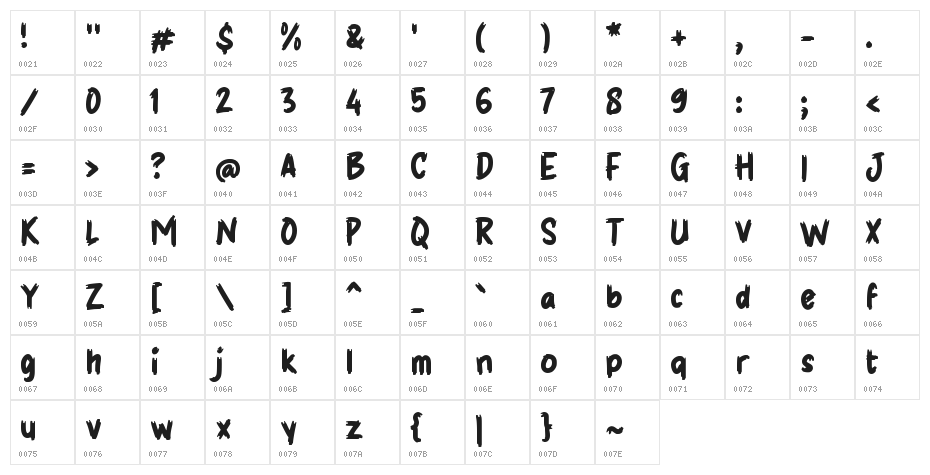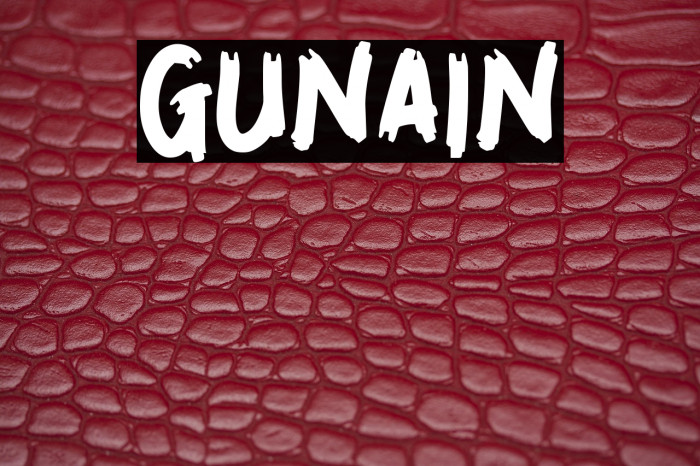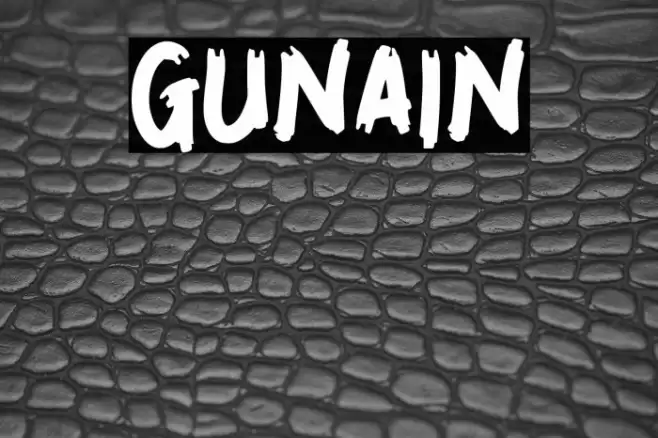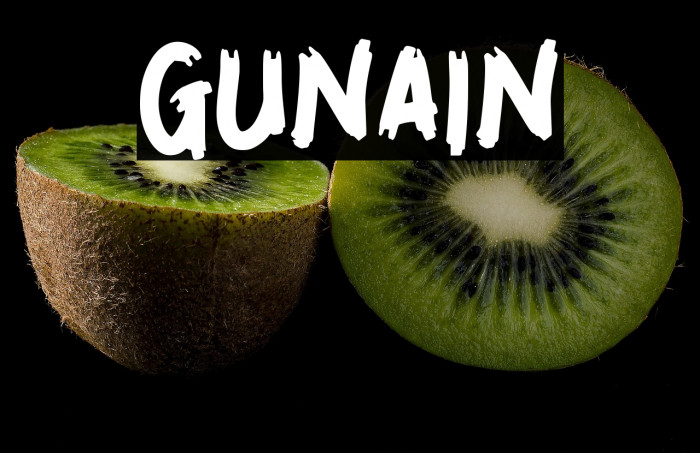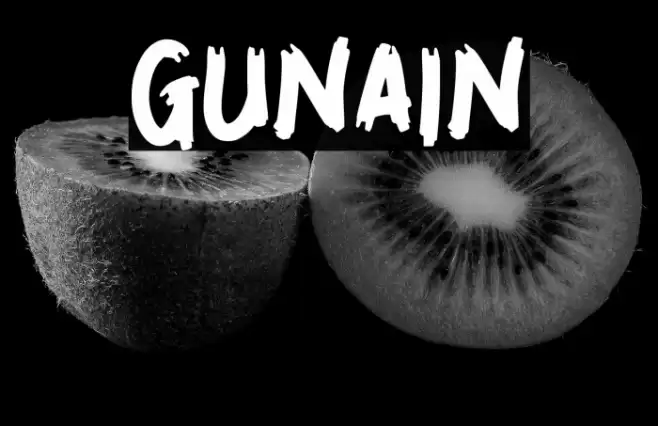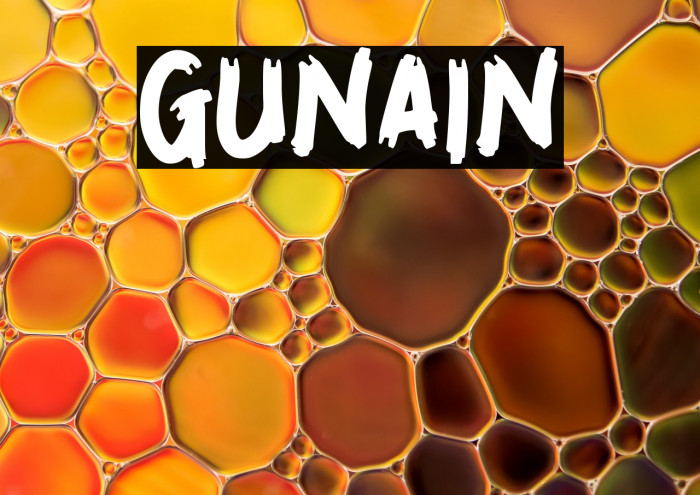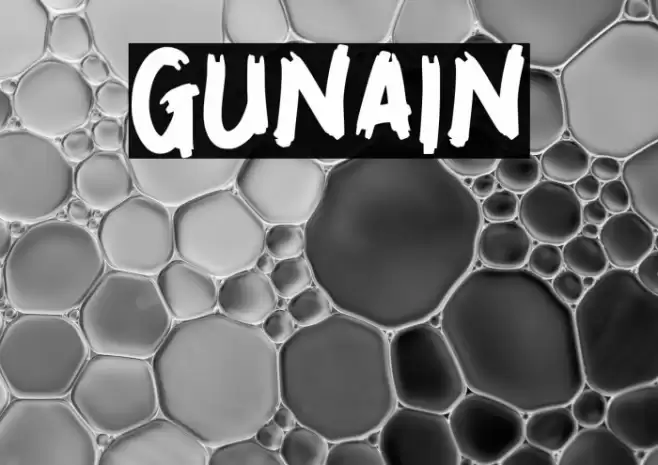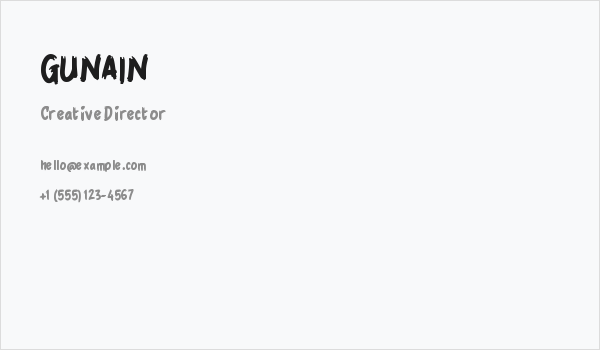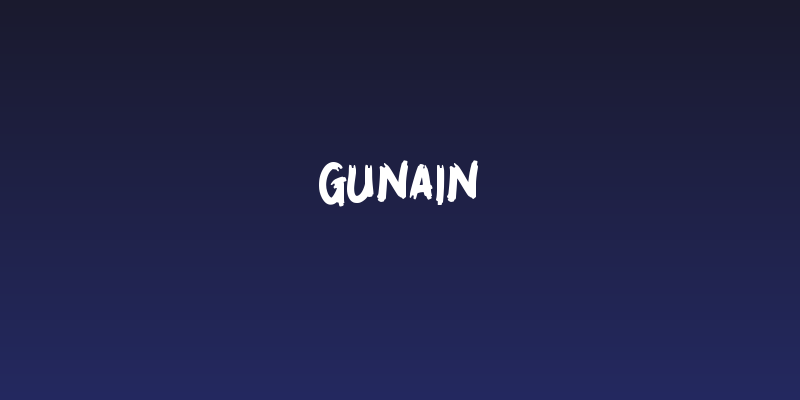
GUNAIN Font
GUNAIN Description
This font exhibits a bold and expressive style, characterized by its brush-like strokes and dynamic appearance. The letters have a hand-drawn quality, with uneven edges and varying stroke thickness that give it a lively and energetic feel. The uppercase and lowercase letters maintain a consistent style, with a playful and informal tone. The numbers and special characters follow the same aesthetic, ensuring a cohesive look across all elements. This font is ideal for projects that require a personal touch or a creative flair, such as posters, invitations, or branding materials.
| Proposed Projects | Ideal for creative projects like posters, invitations, or branding that require a personal touch. |